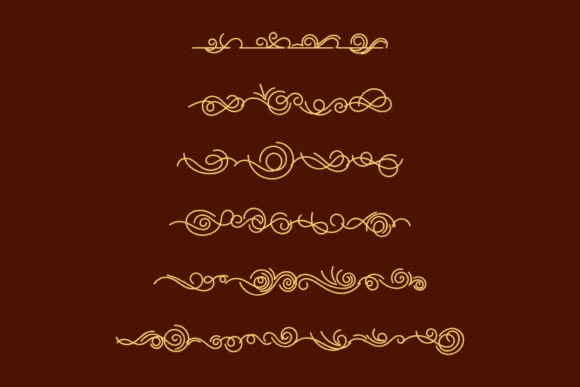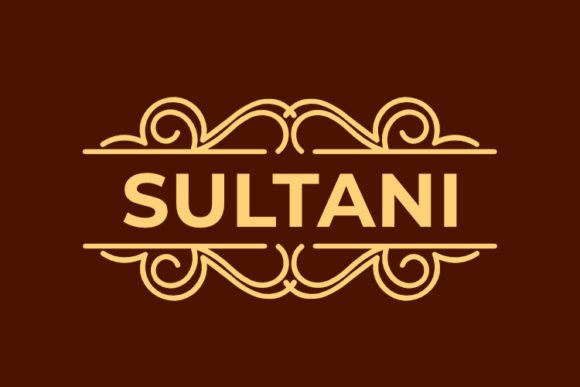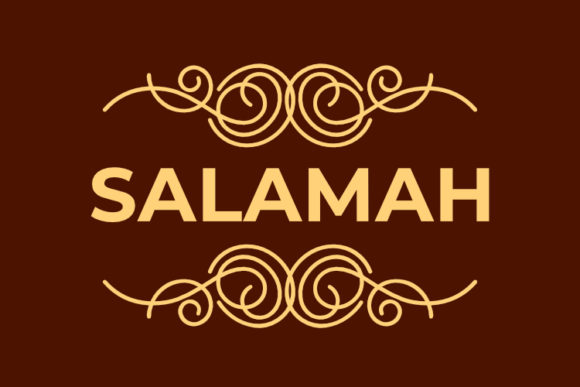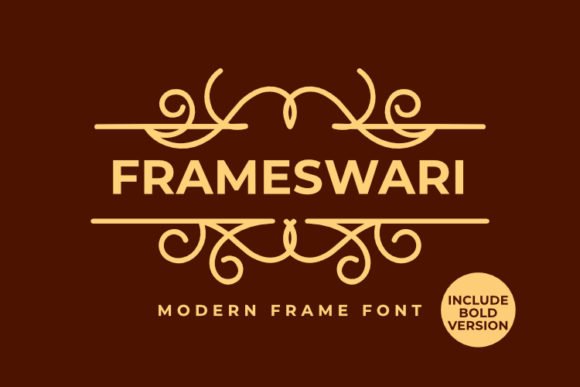
Introduction to Frameswari Font
Frameswari is a gorgeous dingbats font that delivers a wonderfully charming set of frames.
It comes in two distinct versions, giving you all the creative freedom you need to create stunning frames .
Frameswari Font offers exceptional quality and versatility, making it a valuable addition to your design toolkit. Whether you’re creating for personal projects or commercial use, Frameswari Font delivers professional results.